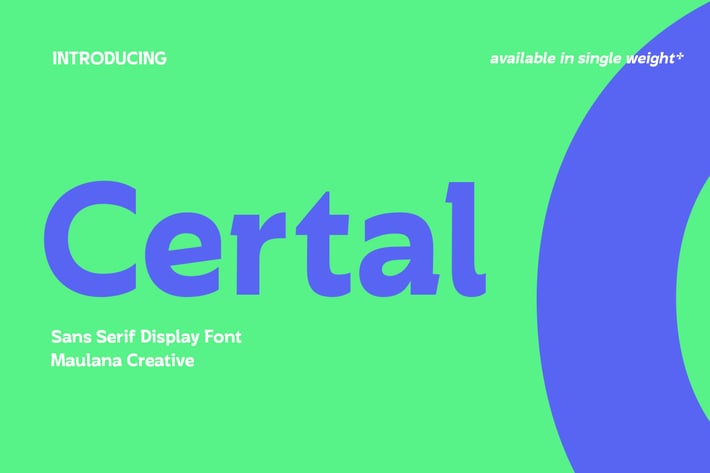
Certal Sans Serif Display Font
Certal is a historical based sans serif Display font. Bold stroke, fun character with a bit of ligatures and alternates. To give you an extra creative work. Certal font support multilingual more than 100+ language. This font is good for logo design, Social media, Movie Titles, Books Titles, a short text even a long text letter and good for your secondary text font with script or serif. Make a stunning work with Certal font.